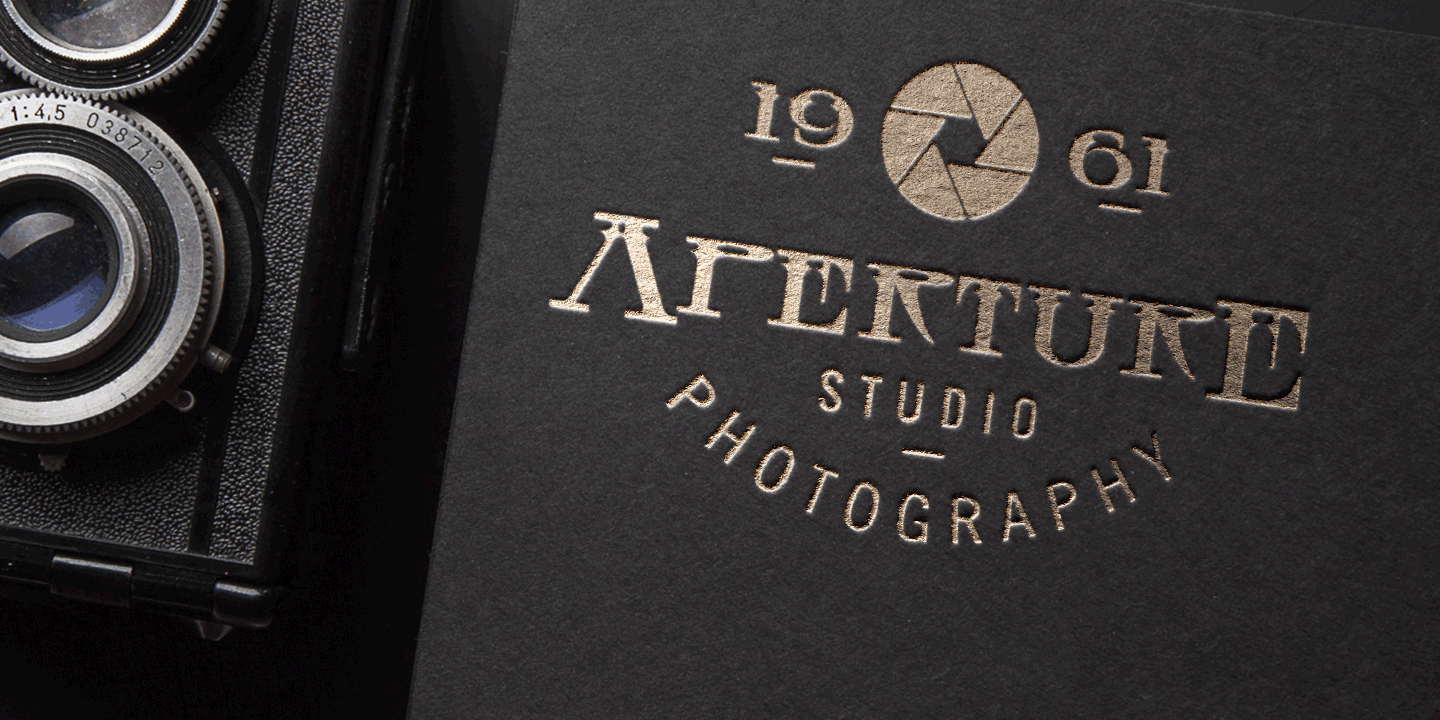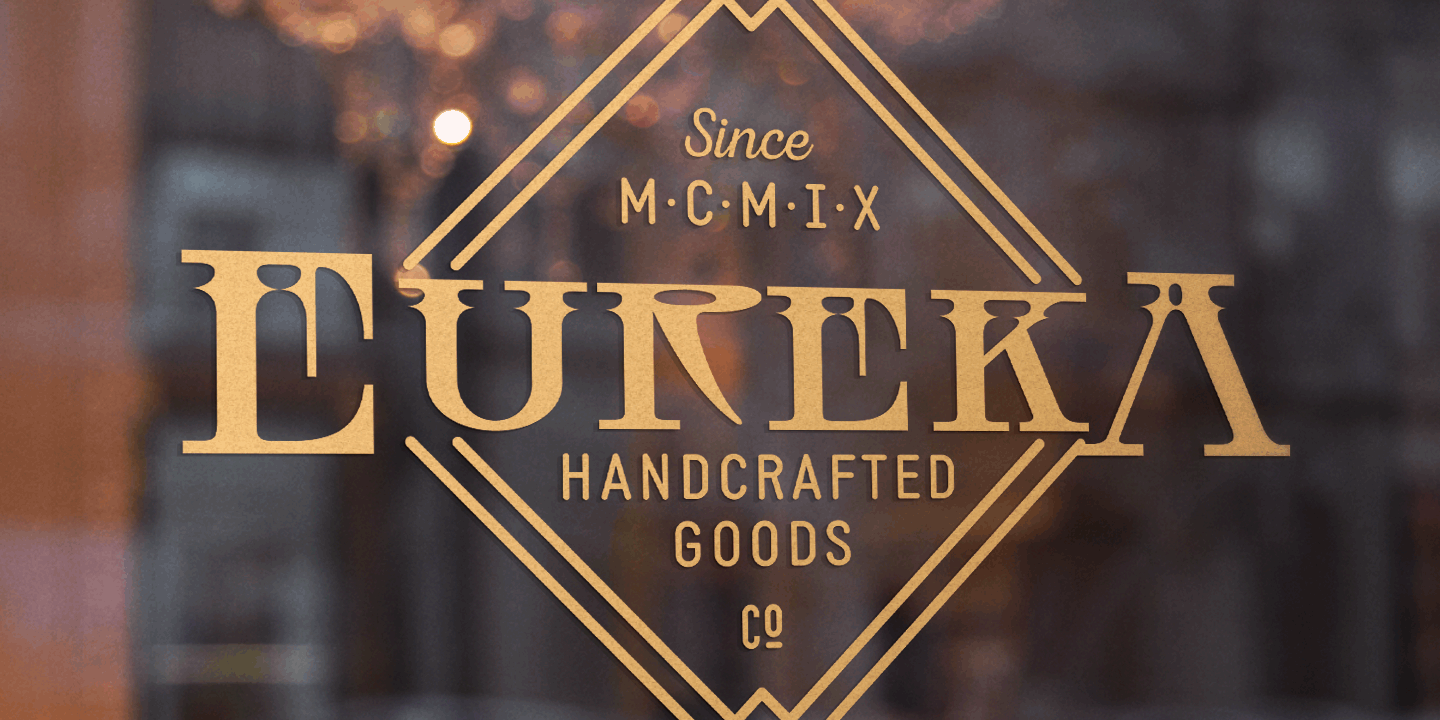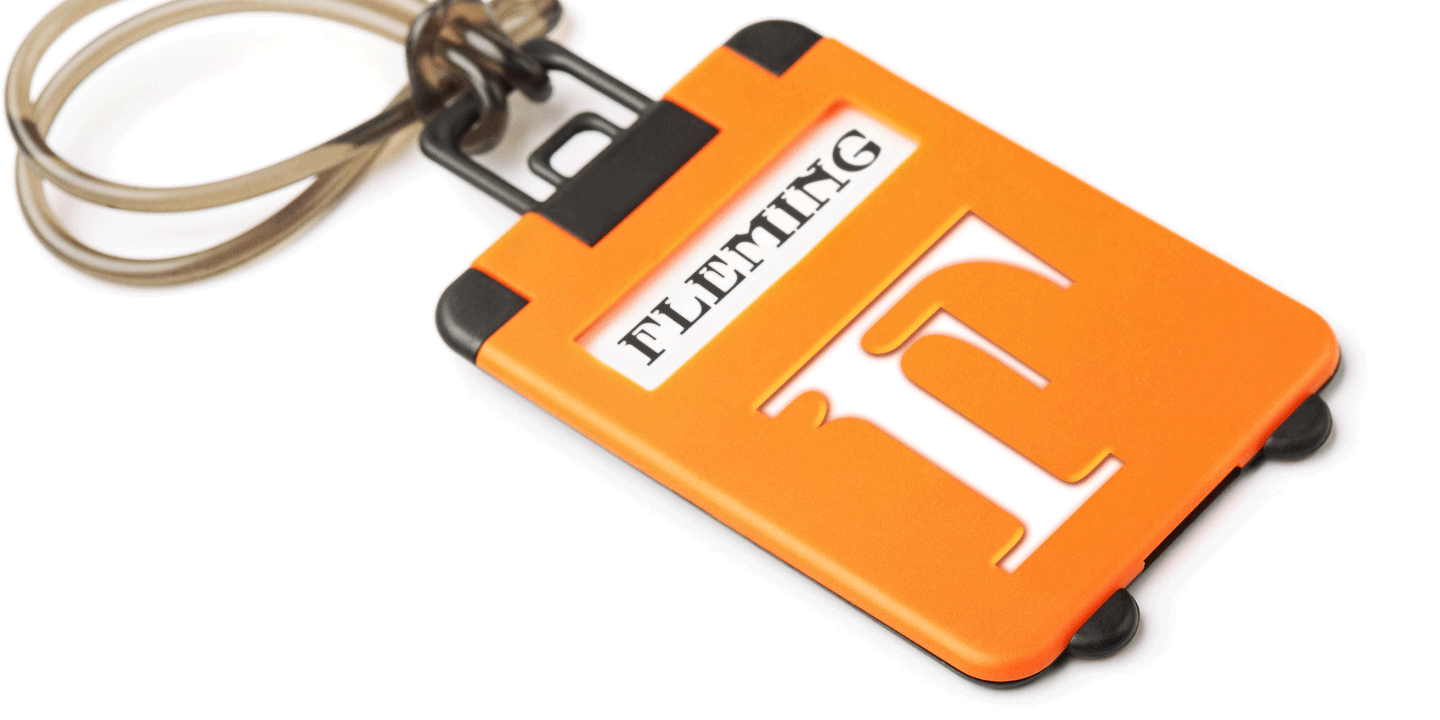
About MFC Tattersaw Monogram
The source of inspiration for MFC Tattersaw Monogram is a specimen from the 1917 ?Strong\’s Book of Designs?. This popular lettering style has been incorporated into numerous film type foundries of the past, but lacked digital permanence. We\’ve expanded…